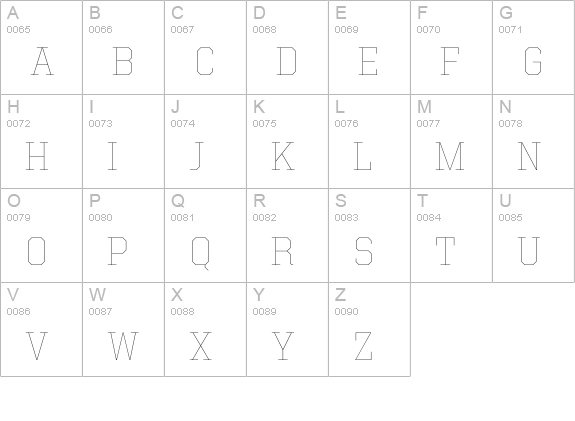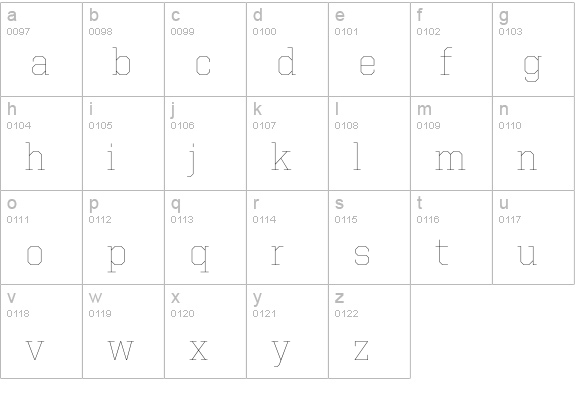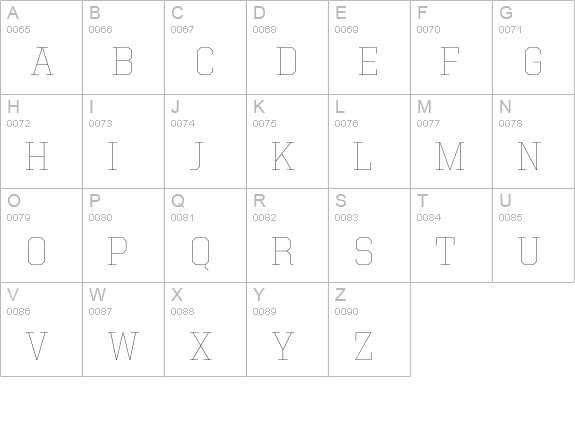
United Serif Reg Thin Font Details
United Serif Reg Thin is a delicate, low-contrast variant in the United typeface family \xE2\x80\x94 well suited to fashion editorial, minimal branding, and high-contrast display.
United Serif Reg Thin is a striking and elegant font that exudes sophistication and professionalism. With its clean lines and refined curves, this font is perfect for creating a sleek and modern look in any design project. The thin weight of the font adds a delicate touch, making it ideal for headings, titles, and other eye-catching elements. This font is not only visually appealing but also incredibly versatile. It can be used in a variety of contexts, from corporate branding to editorial design, and everything in between. Its timeless and classic design ensures that it will remain relevant and stylish for years to come. The best part? United Serif Reg Thin is available for free download at FontsMarket.com. This means that you can enjoy the beauty and functionality of this font without any cost. Whether you're a professional graphic designer or a hobbyist, having access to high-quality fonts like United Serif Reg Thin can truly elevate your work. Downloading United Serif Reg Thin from FontsMarket.com is quick and easy. Simply visit the website, search for the font, and click the download button. Within seconds, you'll have this stunning font ready to use in your design projects. FontsMarket.com is a trusted source for fonts, ensuring that you can download United Serif Reg Thin safely and securely. So why wait? Enhance your designs with the timeless beauty of United Serif Reg Thin. Download it for free at FontsMarket.com and elevate your creative projects to new heights.